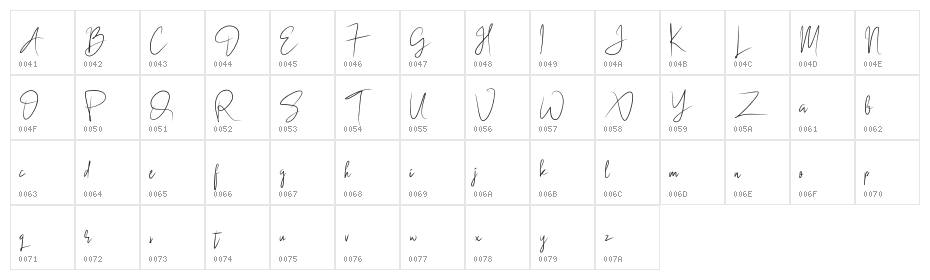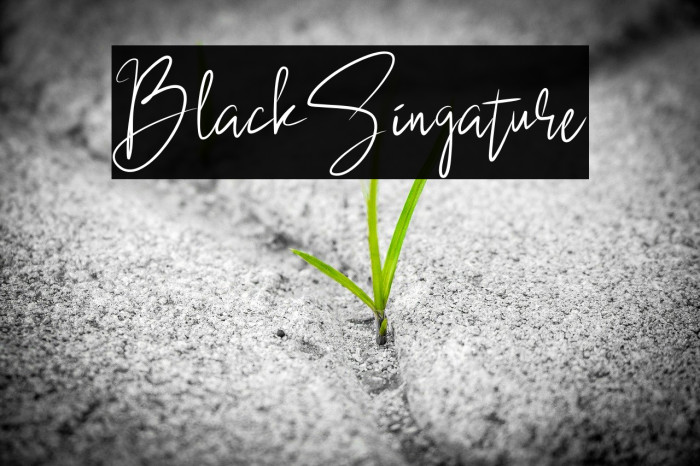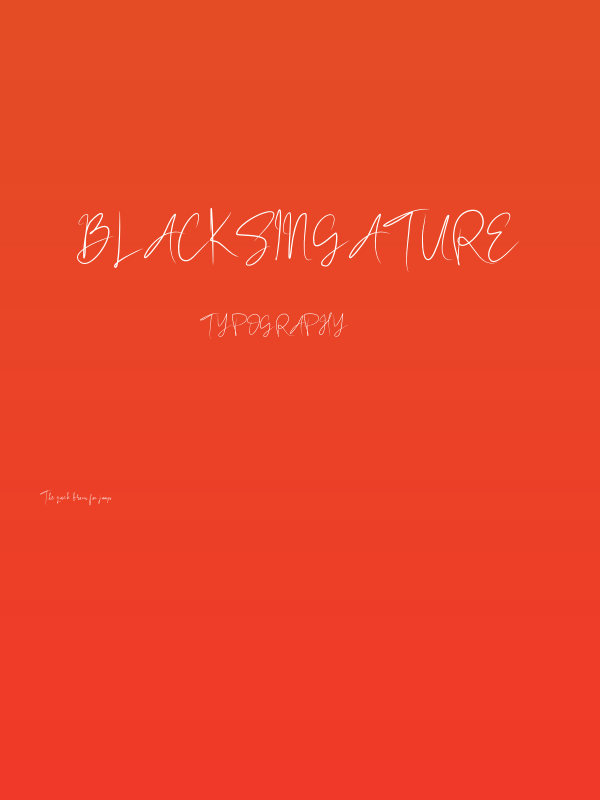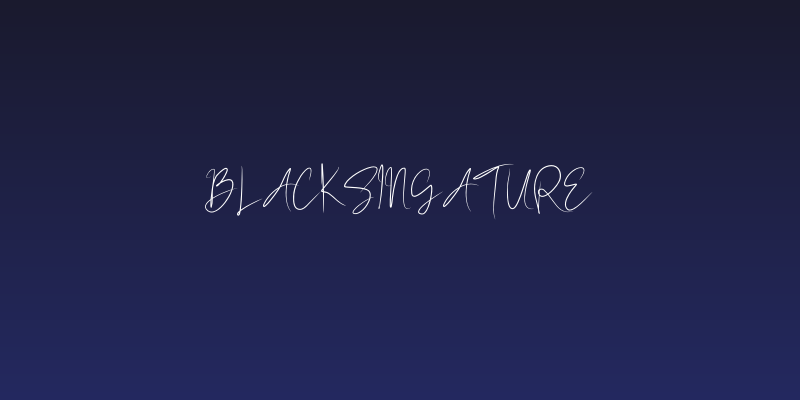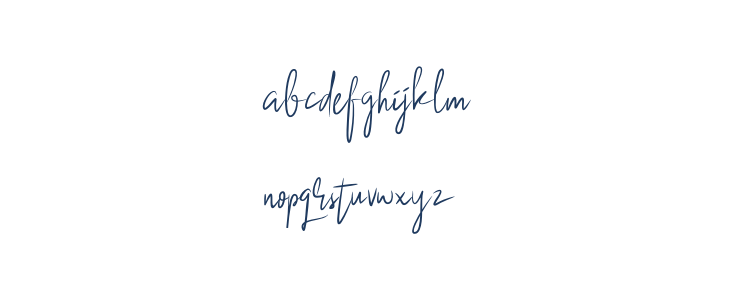
BlackSingature Font
BlackSingature Description
This font exudes a sense of elegance and fluidity, characterized by its cursive, handwritten style. The uppercase letters are tall and slender, with graceful loops and swirls that give a sense of movement and sophistication. The lowercase letters maintain a consistent flow, with smooth connections between each character, enhancing the script's overall harmony. The font's thin strokes and delicate curves create a refined aesthetic, making it suitable for projects that require a touch of class and personalization. Its artistic flair is evident in the unique variations of each letter, providing a bespoke feel that is ideal for creative designs.
| Overall Style | Elegant, Artistic |
| Proposed Projects | Ideal for wedding invitations, personal branding, elegant logos, and artistic projects. |